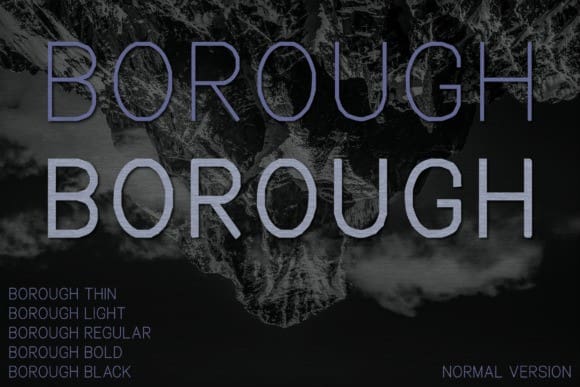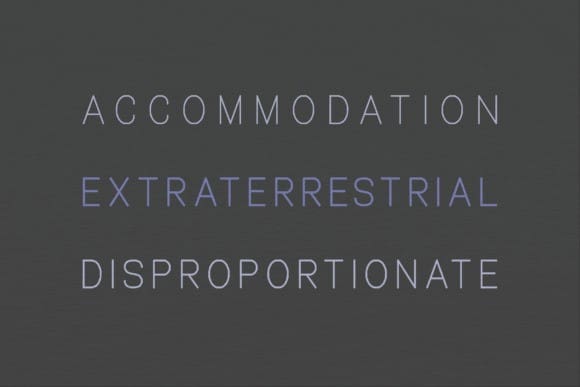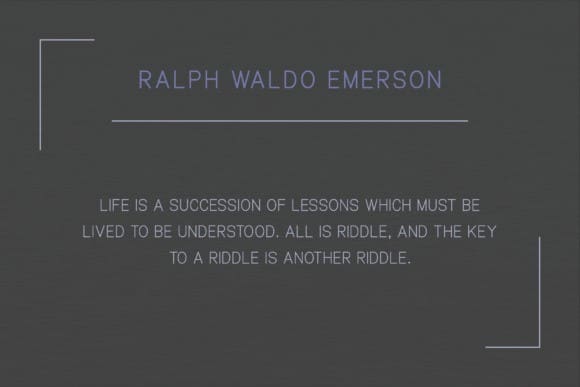
Borough Font Family
Borough Font family. Flaunting five unique weights, this sans serif assortment beautifully marries the essence of contemporary design and opulence. Developed with unmatched accuracy, the BoroughFont effortlessly breathes life into any creative endeavor, be it a modish magazine, a dynamic logo or a captivating film poster. Experience the flawless blend of sophistication and simplicity that enables your designs to radiate with an everlasting allure. Unleash the potential of the Borough Font family now and let your creativity shine.